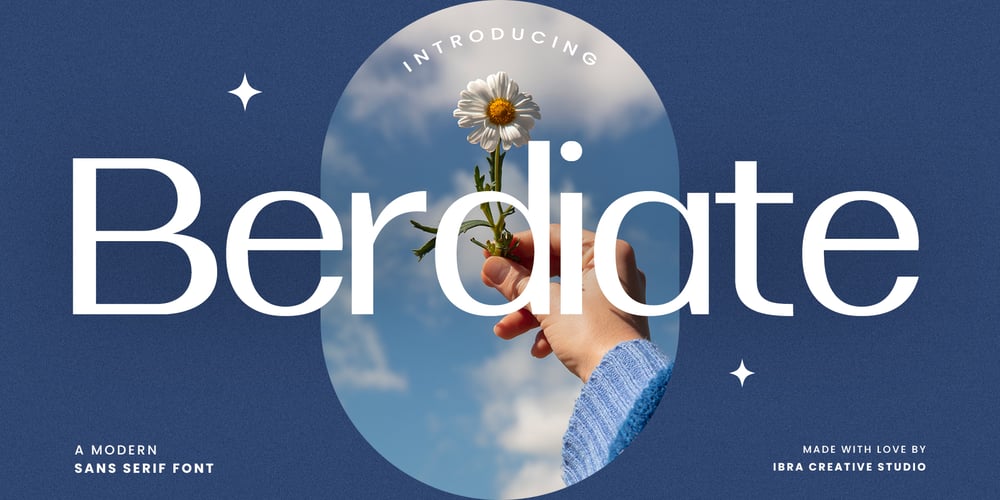
Berdiate Font Family was designed by Roisatul Azizah and published by IbraCreative. Berdiate contains 1 styles and family package options. Berdiate – A Modern Sans Serif TypefaceBerdiate, a modern sans-serif typeface, embodies the essence of contemporary design with its clean lines, geometric precision, and a touch of minimalist sophistication. Its letterforms are meticulously crafted to achieve optimal legibility and versatility across various design applications. The absence of decorative serifs and the sleek, uniform strokes contribute to a sleek and streamlined appearance, making Berdiate ideal for conveying a sense of modernity and clarity. Whether enhancing digital interfaces, creating sleek branding materials, or delivering a polished editorial look, Berdiate stands as a testament to the seamless integration of form and function, making it a go-to choice for designers seeking a modern and timeless sans-serif typeface.Berdiate is perfect for branding projects, logo, wedding designs, social media posts, advertisements, product packaging, product designs, label, photography, watermark, invitation, stationery, game, fashion and any projects.Fonts include multilingual support for; Afrikaans, Albanian, Czech, Danish, Dutch, English, Estonian, Finnish, French, German, Hungarian, Italian, Latvian, Lithuanian, Norwegian, Polish, Portuguese, Slovak, Slovenian, Spanish, Swedish.